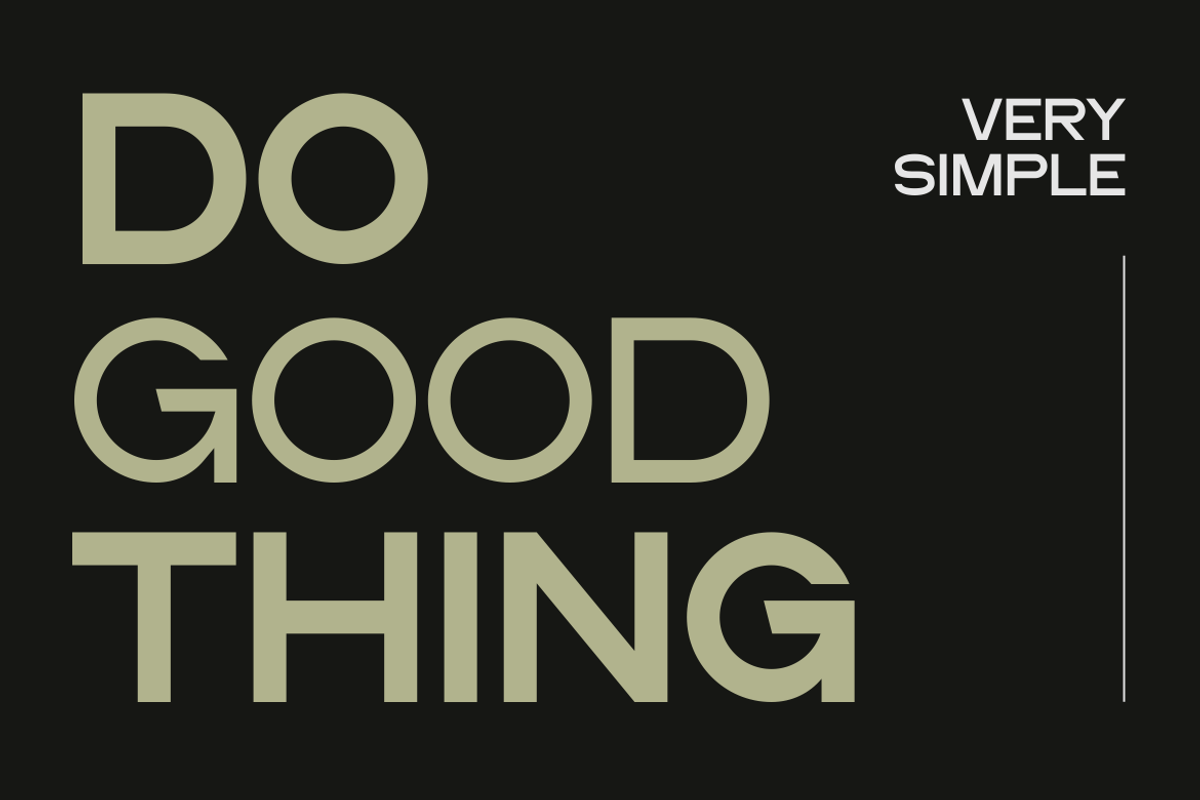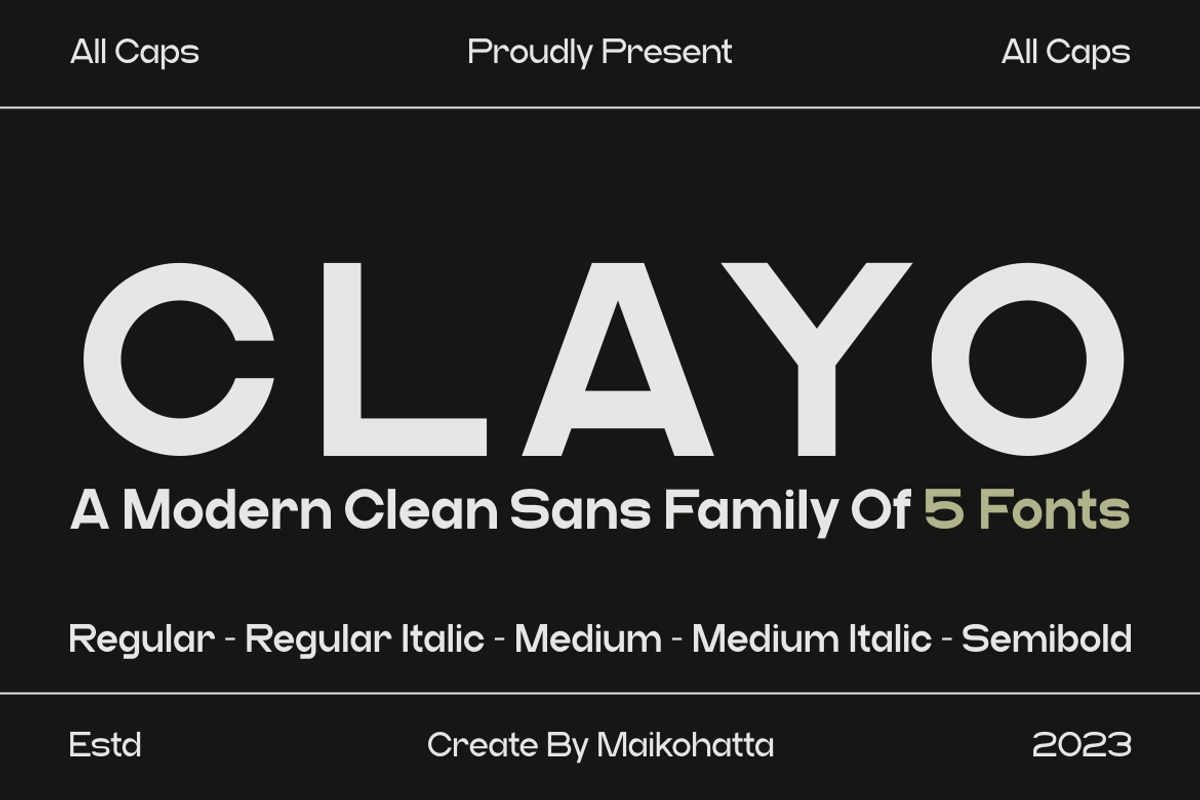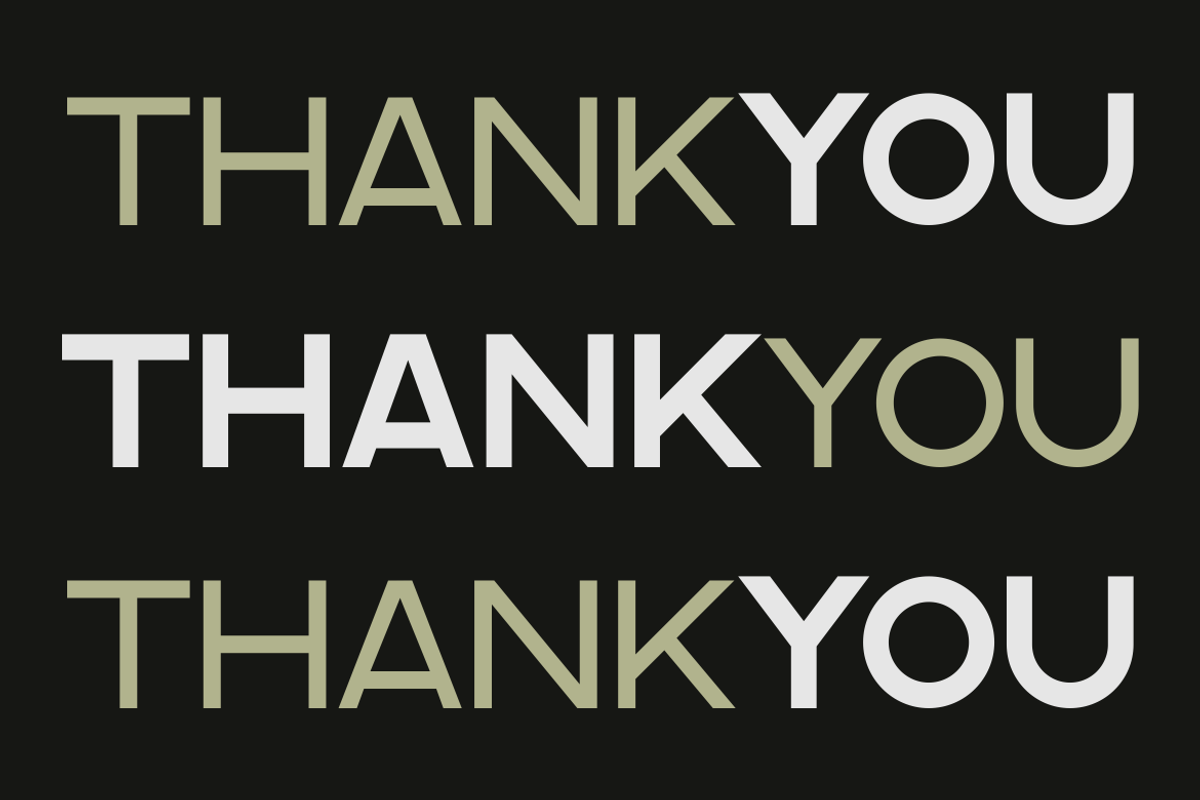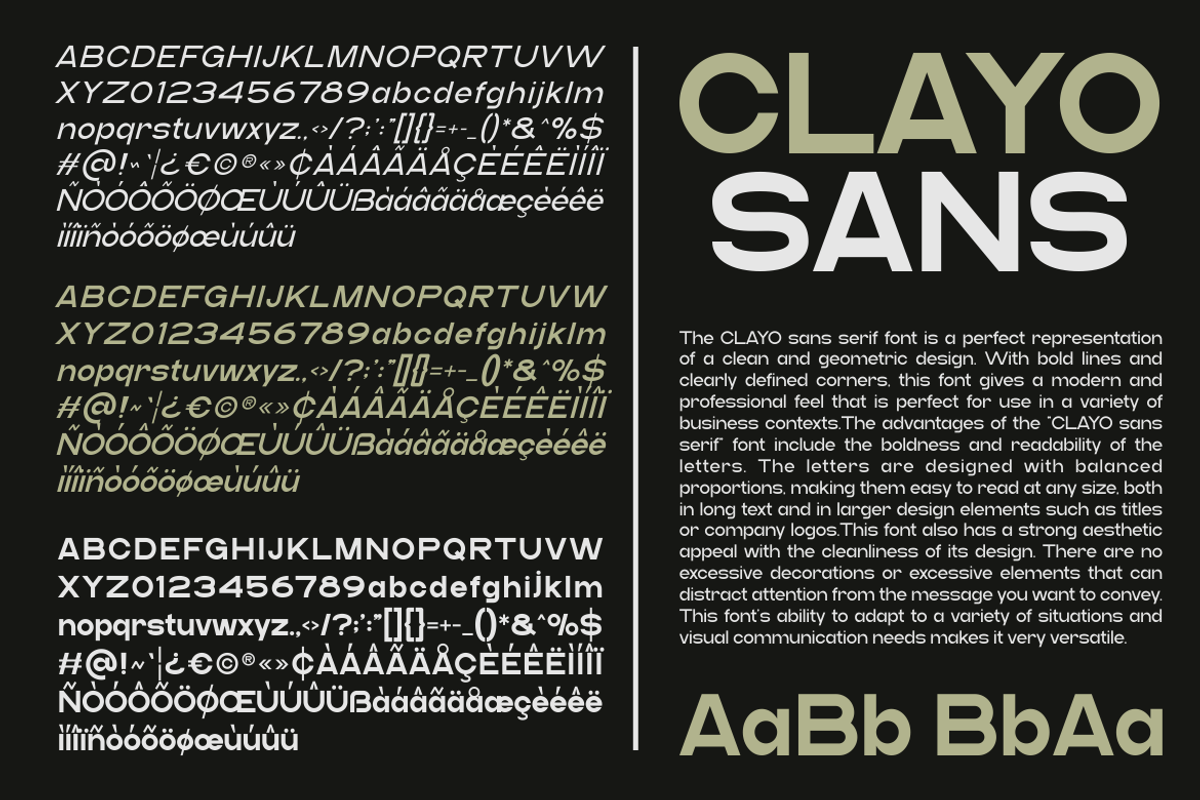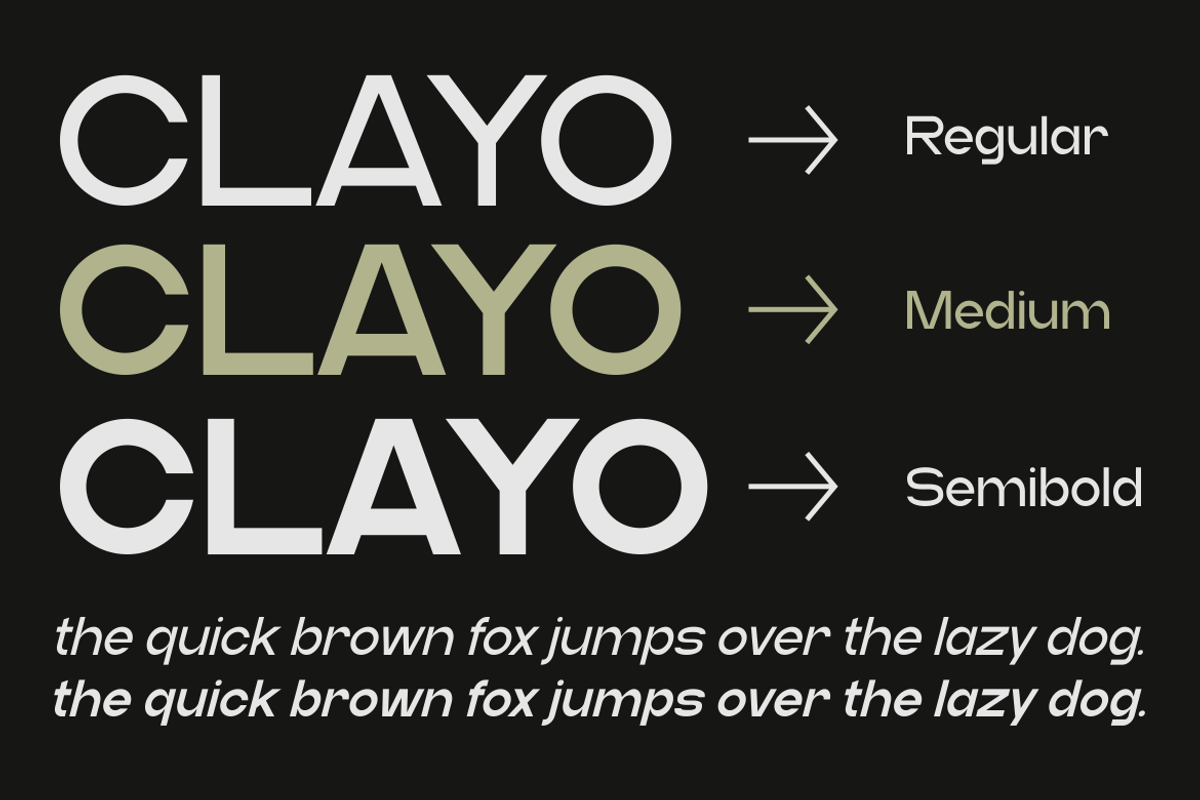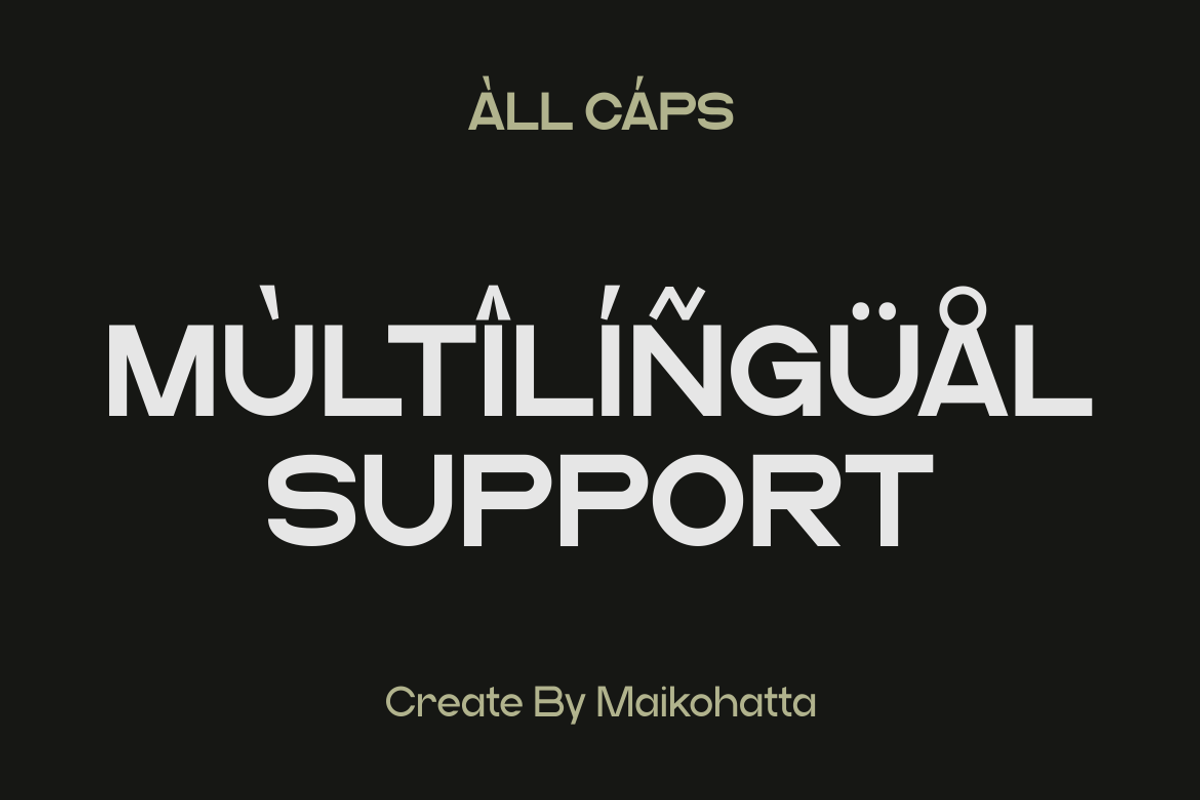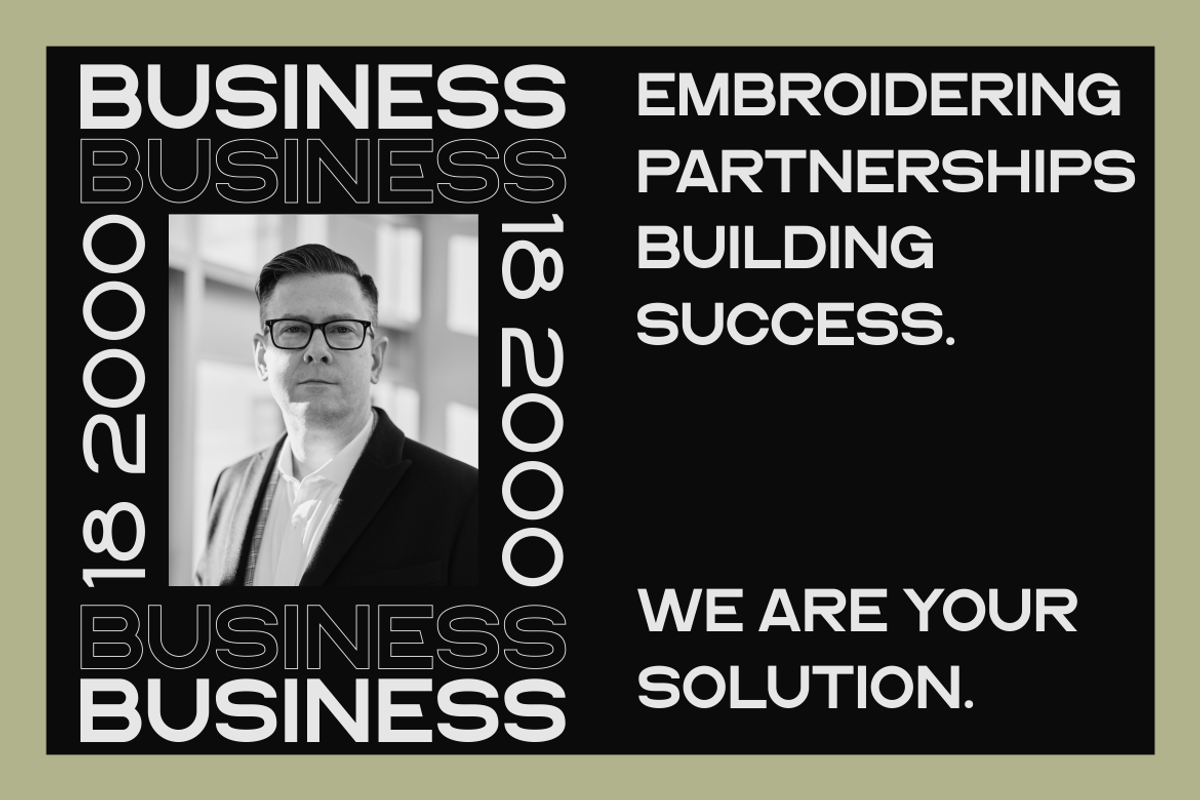
Clayo - Modern Clean Sans Family
A sans-serif font family available in various styles is a highly versatile choice for graphic design and clean, modern text displays. This sans-serif font family offers flexibility in graphic design, and its various styles allow you to customize the appearance of text to suit your project's needs. With various combinations, you can create attractive and easy-to-read text displays in various contexts.